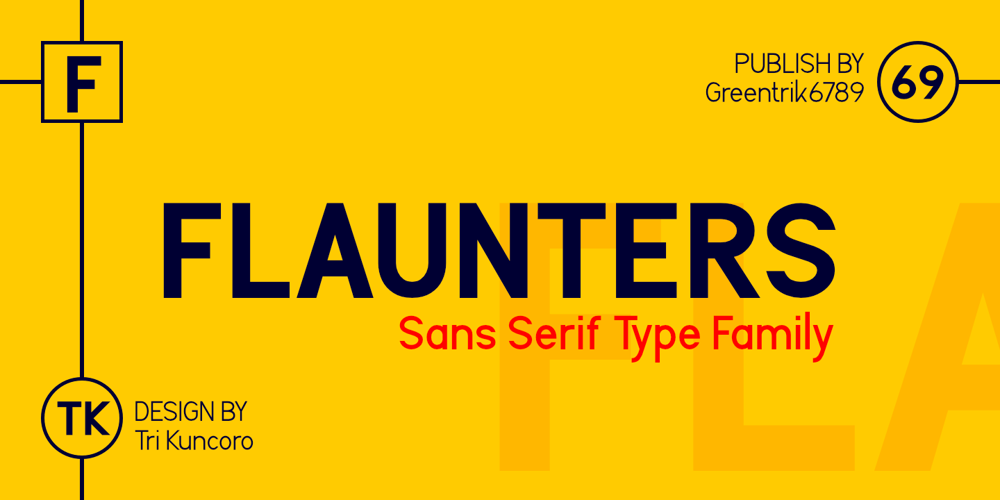
Flaunters
Flaunters font
Flaunters Font Family was designed by Tri Kuncoro and published by Greentrik6789. Flaunters contains 14 styles and family package options. Flaunters is a sans serif font family with neat and beautiful letters. This font family comes with 14 fonts, consisting of 7 upright weights and matching italics.Flaunters is very suitable and looks amazing in designs such as posters, advertisements, banners, or your formal and non-formal design needs.